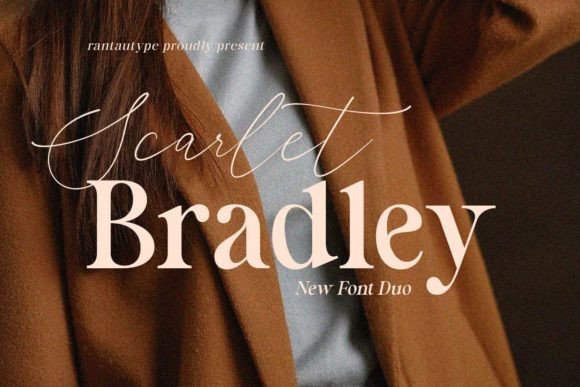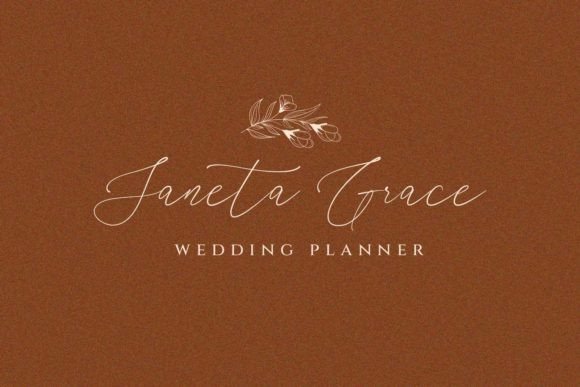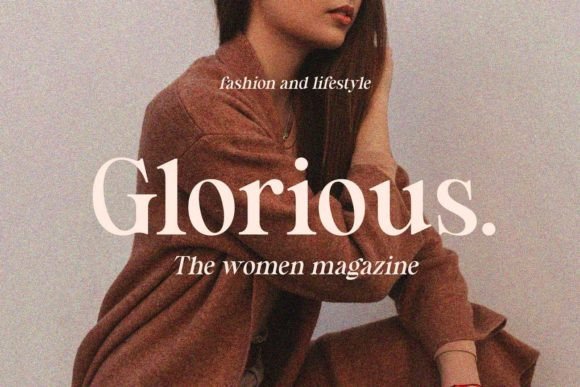
Scarlet Bradley Font
About the Scarlet Bradley Font
Unleash your creativity with Scarlet Bradley Font, a versatile font perfect for a wide range of applications. Introducing scarlet Bradley font duo, Scarlet Bradley is a beautiful serif and script font with more alternative character – serif font with a complementary italic version.
Scarlet Bradley come with elegant script font lowercase ending swash make your work more beautiful.
Features
Scarlet Bradley Font Usage Examples
Scarlet Bradley Font Example